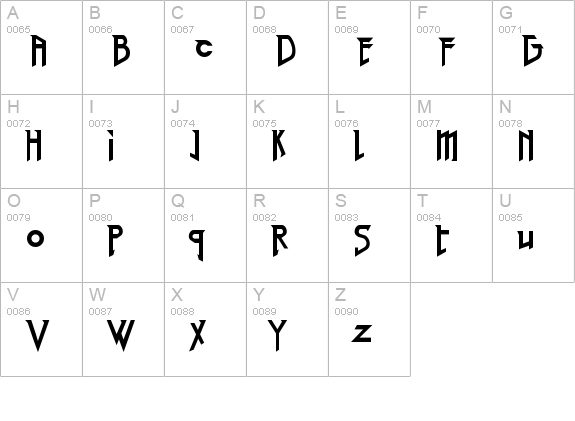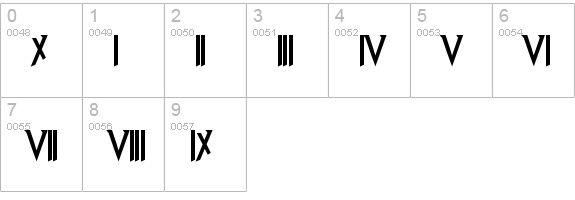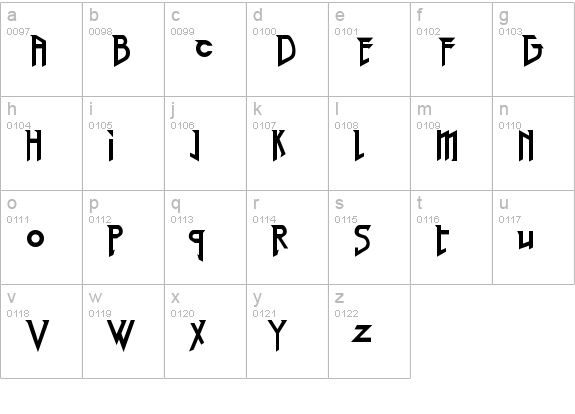
Red Right Hand Font Details
Introducing the captivating and enigmatic Red Right Hand font, a true masterpiece that effortlessly combines elegance and intrigue. This one-of-a-kind typeface is designed to leave a lasting impression with its unique blend of sophistication and mystery. With its bold and striking letterforms, Red Right Hand commands attention and demands to be noticed. It exudes an air of confidence and authority, making it the perfect choice for brands and projects that aim to make a statement. Its distinct style is sure to captivate and leave a lasting impression on any audience. But what truly sets Red Right Hand font apart is its versatility. Whether you're designing a logo, creating eye-catching headlines, or crafting an unforgettable poster, this font has the ability to adapt and enhance any creative endeavor. Its carefully crafted curves and impeccable details make it an absolute pleasure to work with. And the best part? Red Right Hand font is freely available for download at FontsMarket.com. That's right, you can unleash the power of this extraordinary typeface without any cost. It's a font that not only delivers in terms of design and impact but also offers accessibility to designers and enthusiasts alike. So, don't miss out on the opportunity to infuse your projects with the mesmerizing allure of Red Right Hand font. Download it today, and let your creativity take center stage.